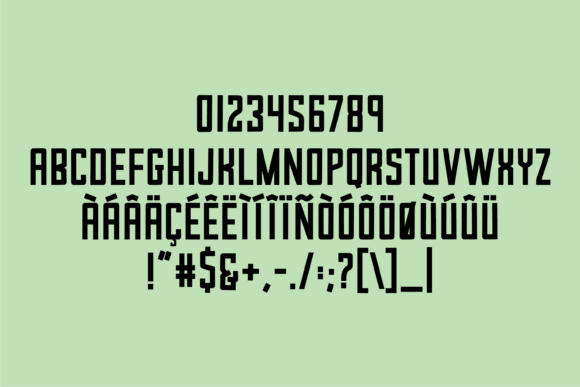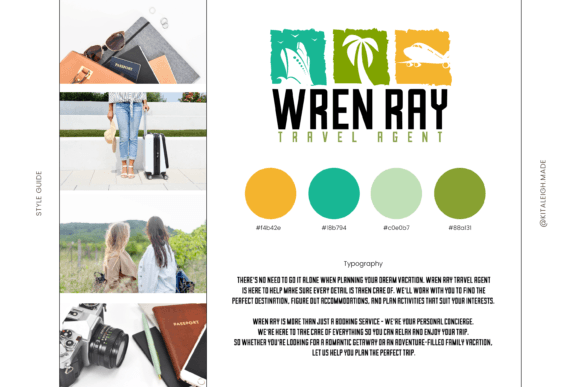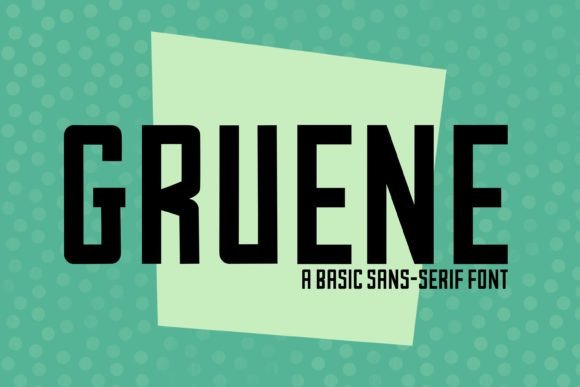
Gruene Font: The Ultimate Choice for Style and Uniqueness
Are you tired of using the same old fonts for your designs? Do you want to add a touch of uniqueness and style to your projects? Look no further than Gruene Font! This sans serif font is a game-changer, offering a bold block style that sets it apart from the rest, while maintaining excellent readability.
What is Gruene Font?
Gruene Font is a modern sans serif font that is designed to make a statement. Its bold block style gives it a unique and edgy look, making it perfect for designers and crafters who want to add a touch of personality to their work. The font is highly versatile, making it suitable for a wide range of projects, from branding and advertising to packaging and digital media.
Key Features of Gruene Font
- Bold Block Style: Gruene Font features a bold block style that gives it a unique and edgy look.
- Excellent Readability: Despite its bold style, Gruene Font maintains excellent readability, making it perfect for body text and headlines.
- Sans Serif: Gruene Font is a sans serif font, which means it doesn’t have any decorative lines or flourishes.
- Highly Versatile: Gruene Font is highly versatile and can be used for a wide range of projects, from branding and advertising to packaging and digital media.
Why Choose Gruene Font?
So, why choose Gruene Font over other fonts? Here are just a few reasons:
- Uniqueness: Gruene Font is a unique and distinctive font that will set your work apart from the rest.
- Style: Gruene Font has a bold and stylish look that will add a touch of personality to your work.
- Readability: Gruene Font maintains excellent readability, making it perfect for body text and headlines.
- Versatility: Gruene Font is highly versatile and can be used for a wide range of projects.
Tips and Tricks for Using Gruene Font
Here are a few tips and tricks for using Gruene Font:
- Use it for Headlines: Gruene Font is perfect for headlines and titles, where its bold style can really make an impact.
- Pair it with Other Fonts: Gruene Font pairs well with other fonts, such as serif fonts or script fonts.
- Experiment with Colors: Gruene Font looks great in a variety of colors, from bold and bright to subtle and muted.
In conclusion, Gruene Font is a unique and stylish font that is perfect for designers and crafters who want to add a touch of personality to their work. Its bold block style and excellent readability make it a versatile font that can be used for a wide range of projects. Whether you’re looking for a font for branding, advertising, packaging, or digital media, Gruene Font is an excellent choice.
- Gruene Font is a modern sans serif font that features a bold block style.